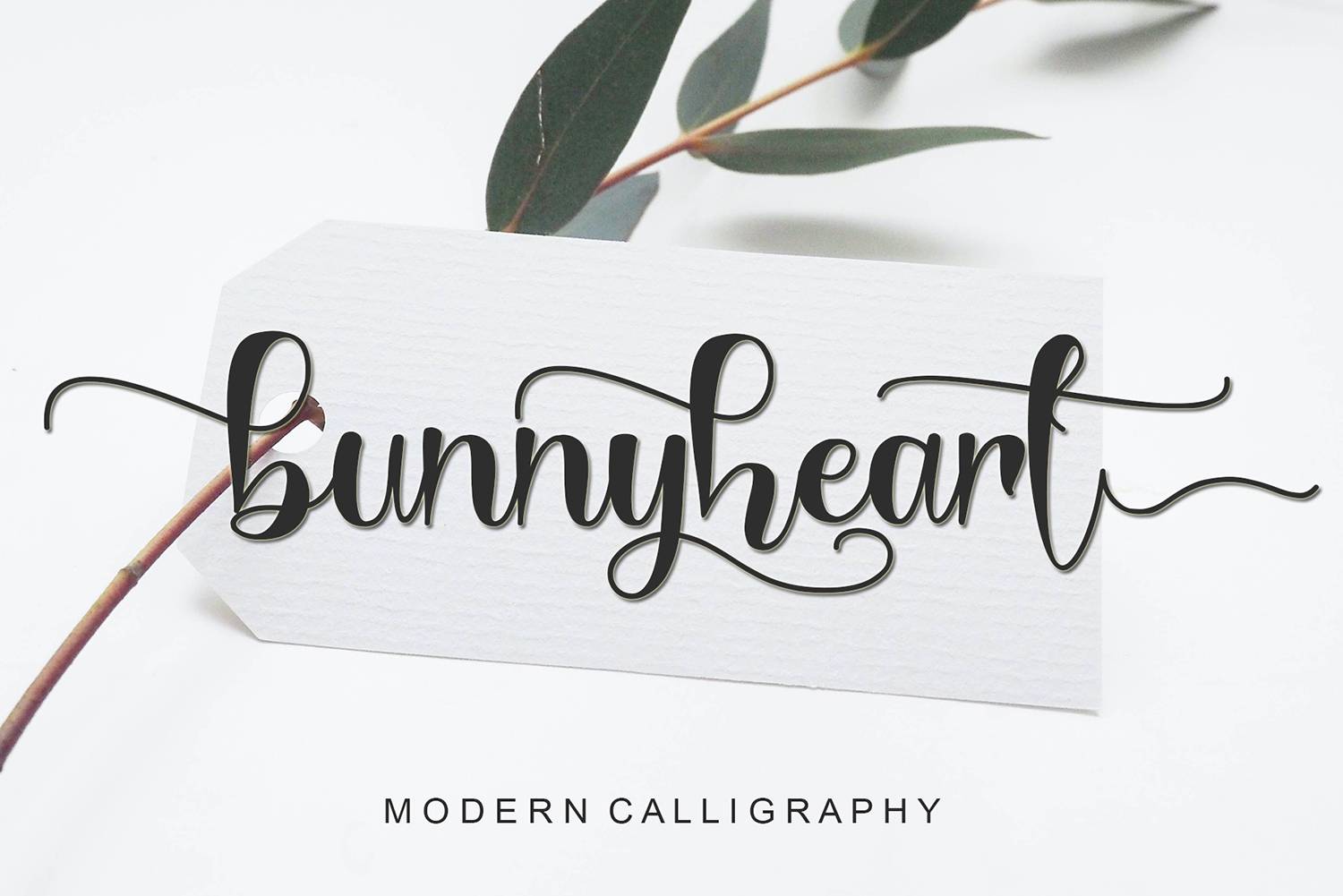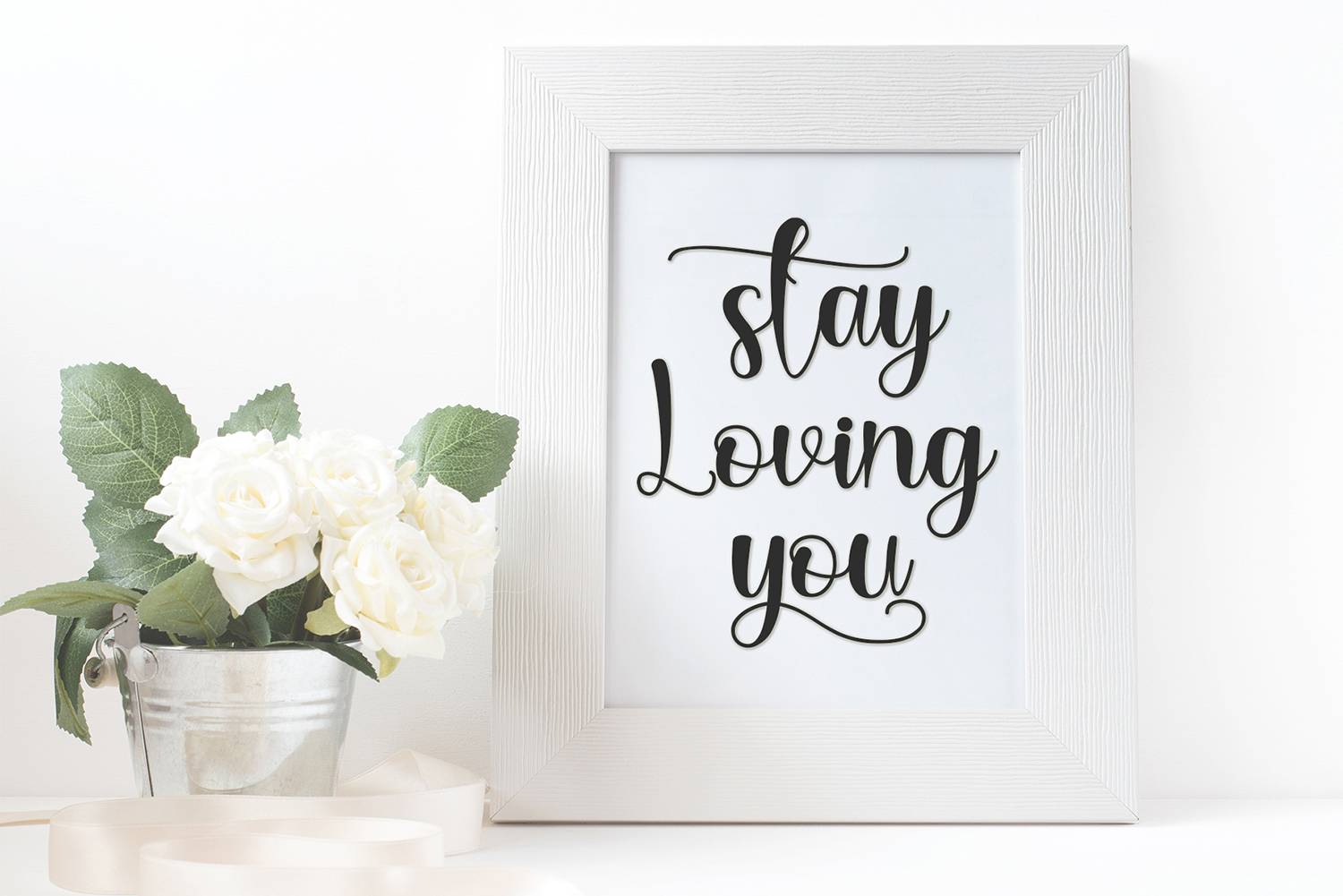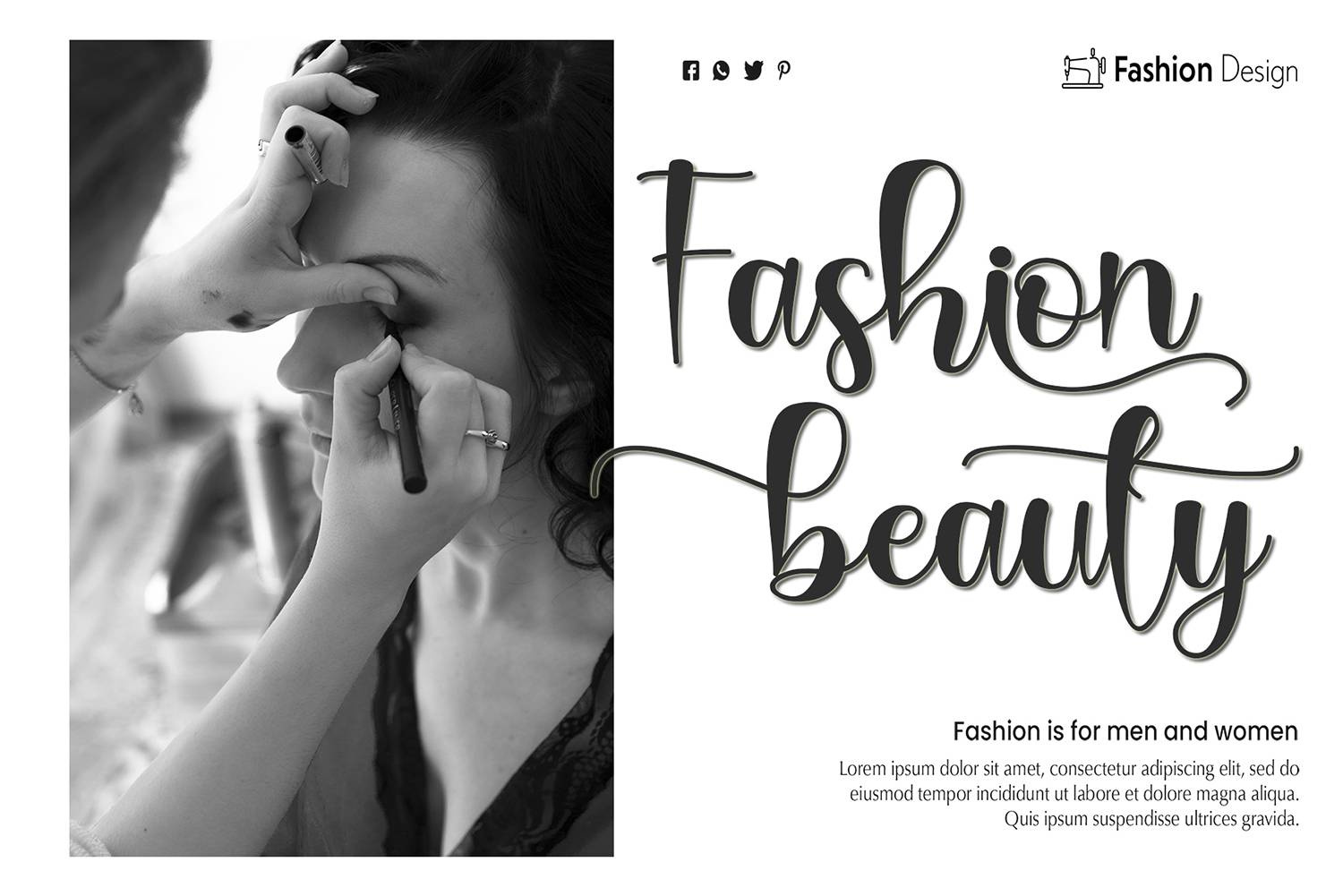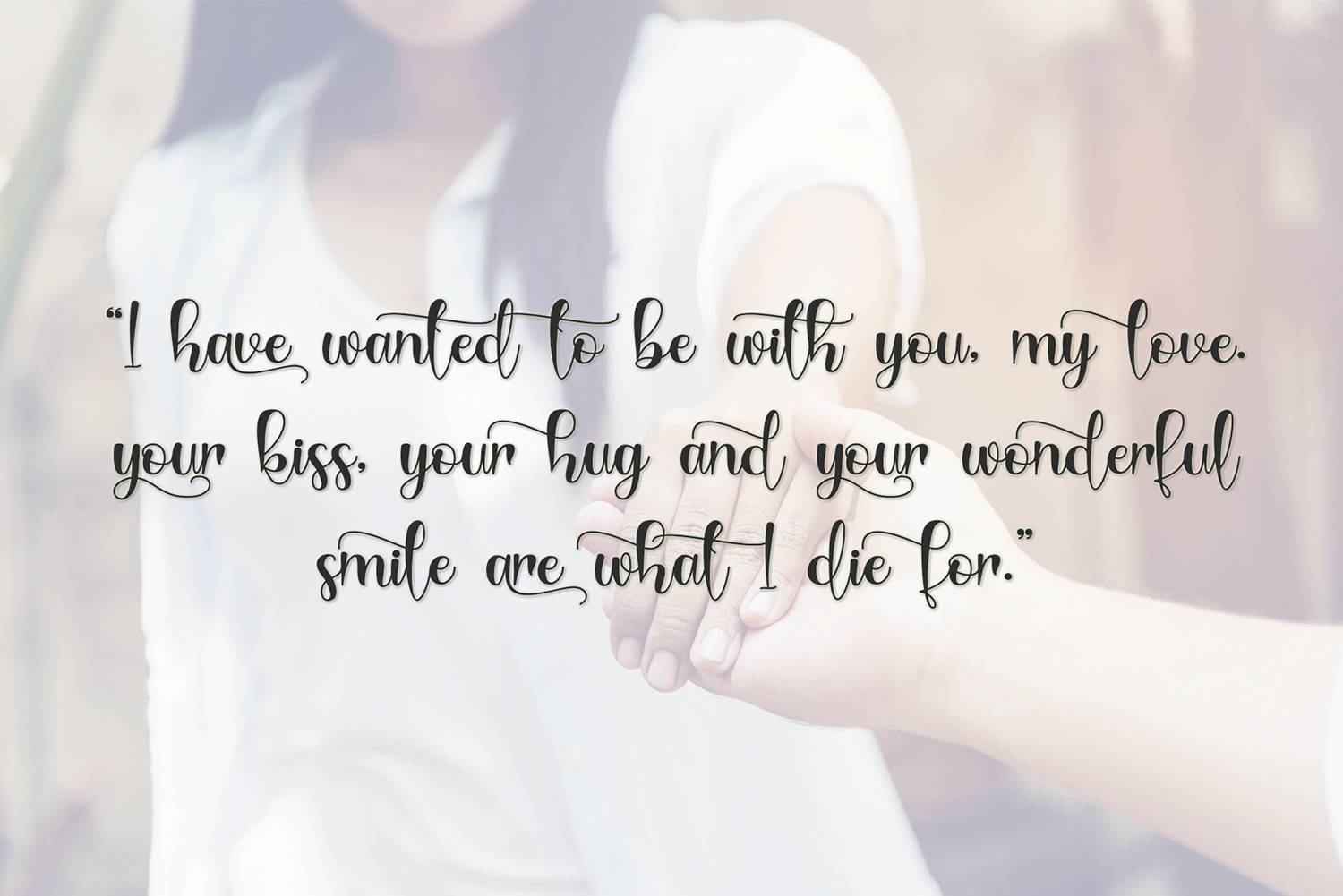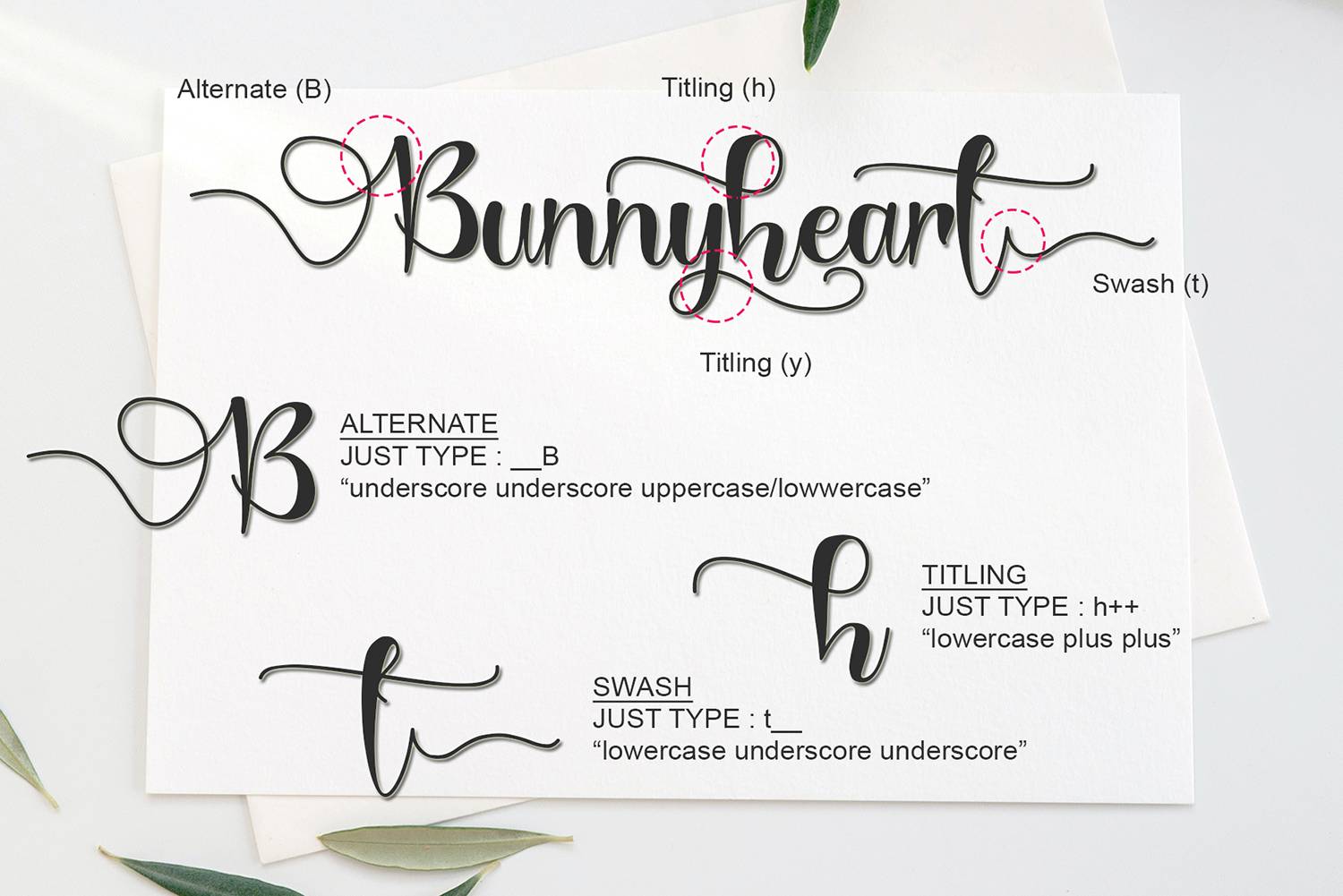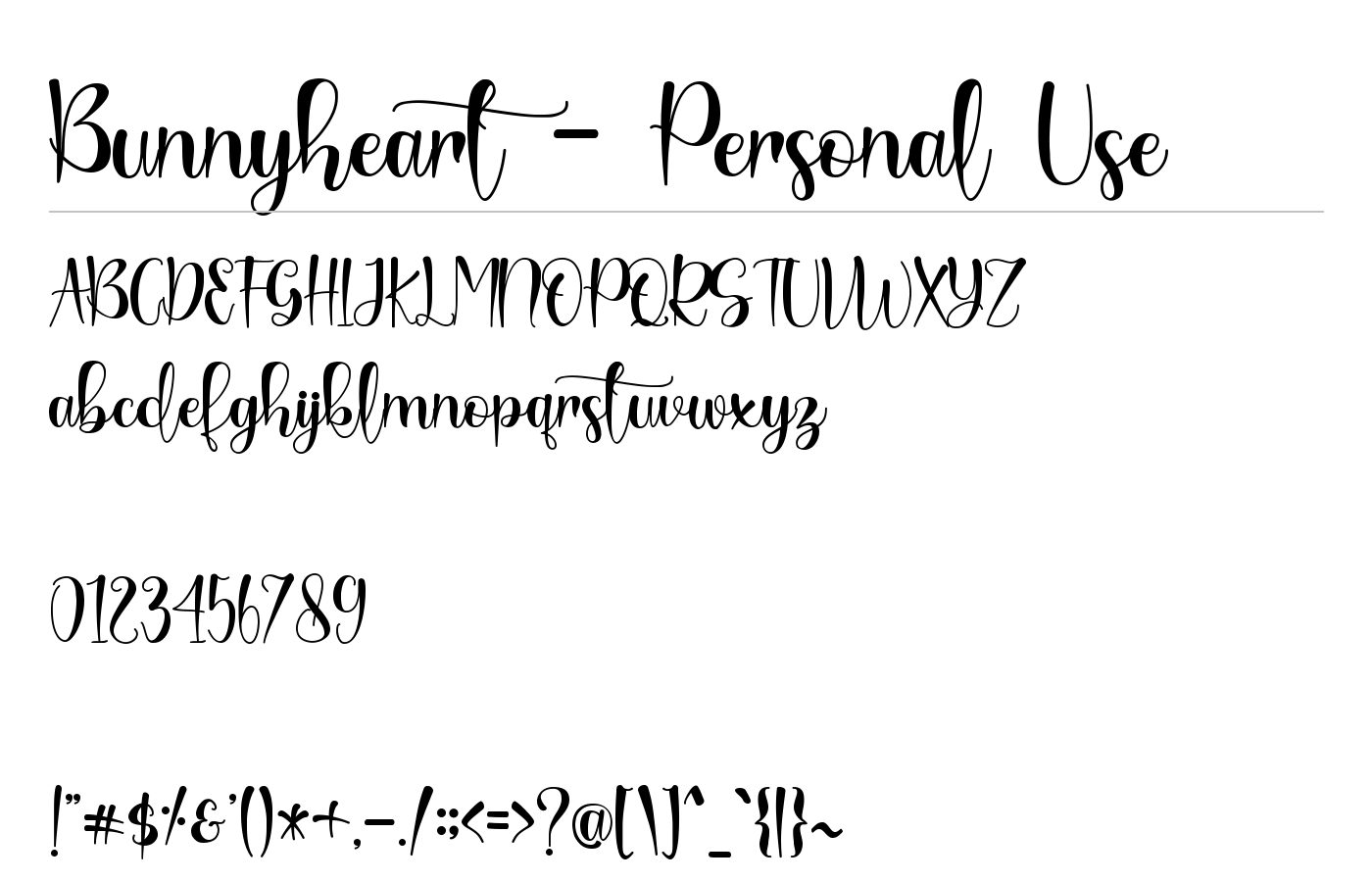
Bunnyheart is a playful and whimsical script font featuring elegant, flowing strokes with varied thickness, giving it a hand-lettered charm. Its tall, narrow letterforms and decorative swashes make it perfect for creative projects like invitations, branding, and headings that need a personal, artistic touch. This font brings a friendly and stylish vibe that works well for fashion, lifestyle, and creative industries.
Bunnyheart Font
About Bunnyheart Font